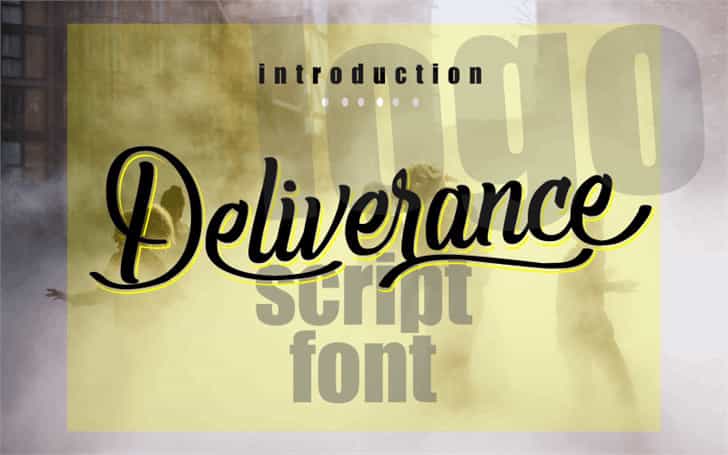
Discover Deliverance FontDeliverance can be described as a pretty, cute, and elegant handwritten font that will give your design concept a powerful look. It is worth it to get inspired by the unique charm of this place!, part of the Brush Handwritten collection—a versatile and unique font perfect for adding a personal touch to your projects. Download it for free and enjoy crafting designs with style, from invitations to social media posts. This font is available exclusively for personal use, giving you the freedom to create without limits. Unlock your creativity with Deliverance FontDeliverance can be described as a pretty, cute, and elegant handwritten font that will give your design concept a powerful look. It is worth it to get inspired by the unique charm of this place! today!
Deliverance can be described as a pretty, cute, and elegant handwritten font that will give your design concept a powerful look. It is worth it to get inspired by the unique charm of this place!